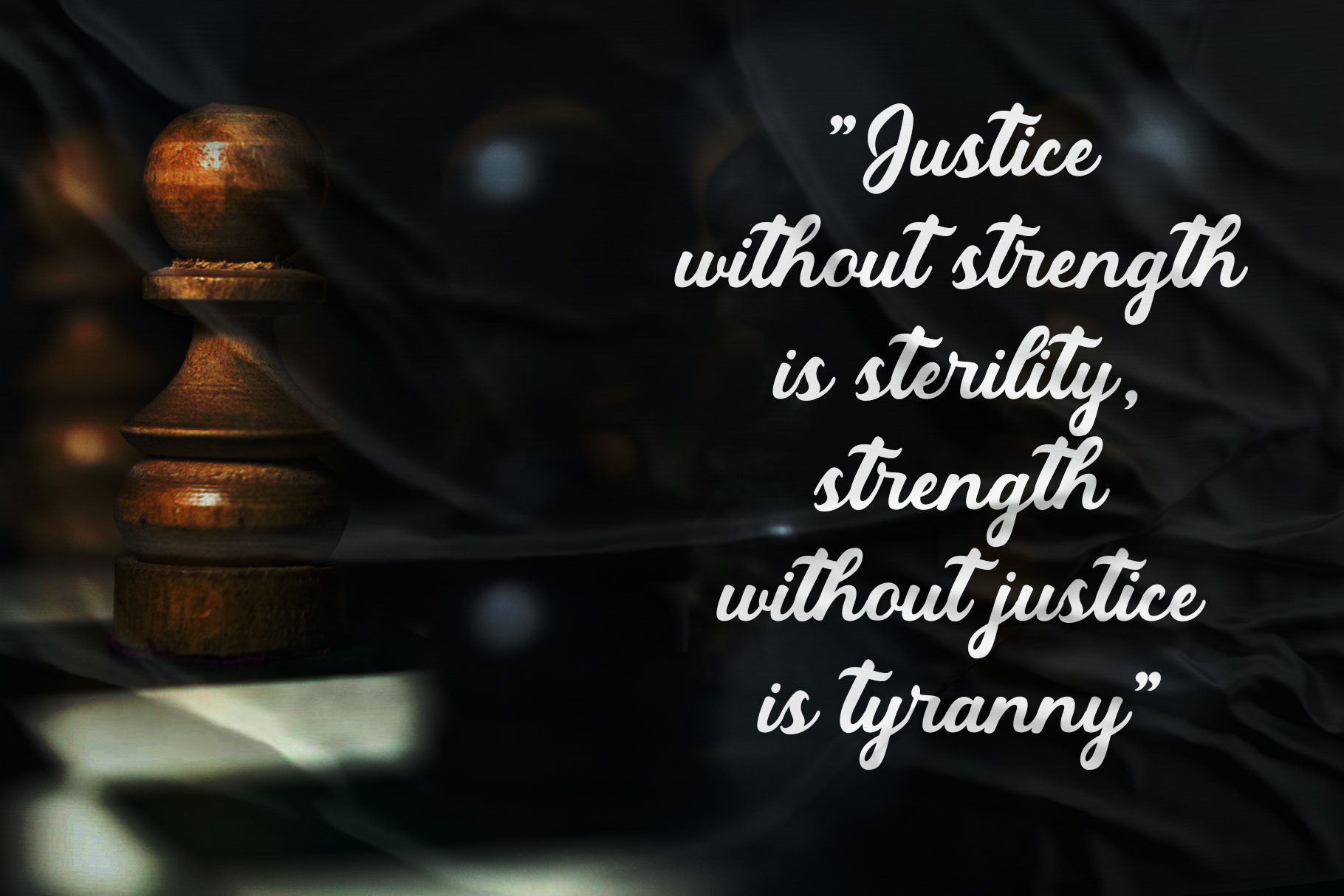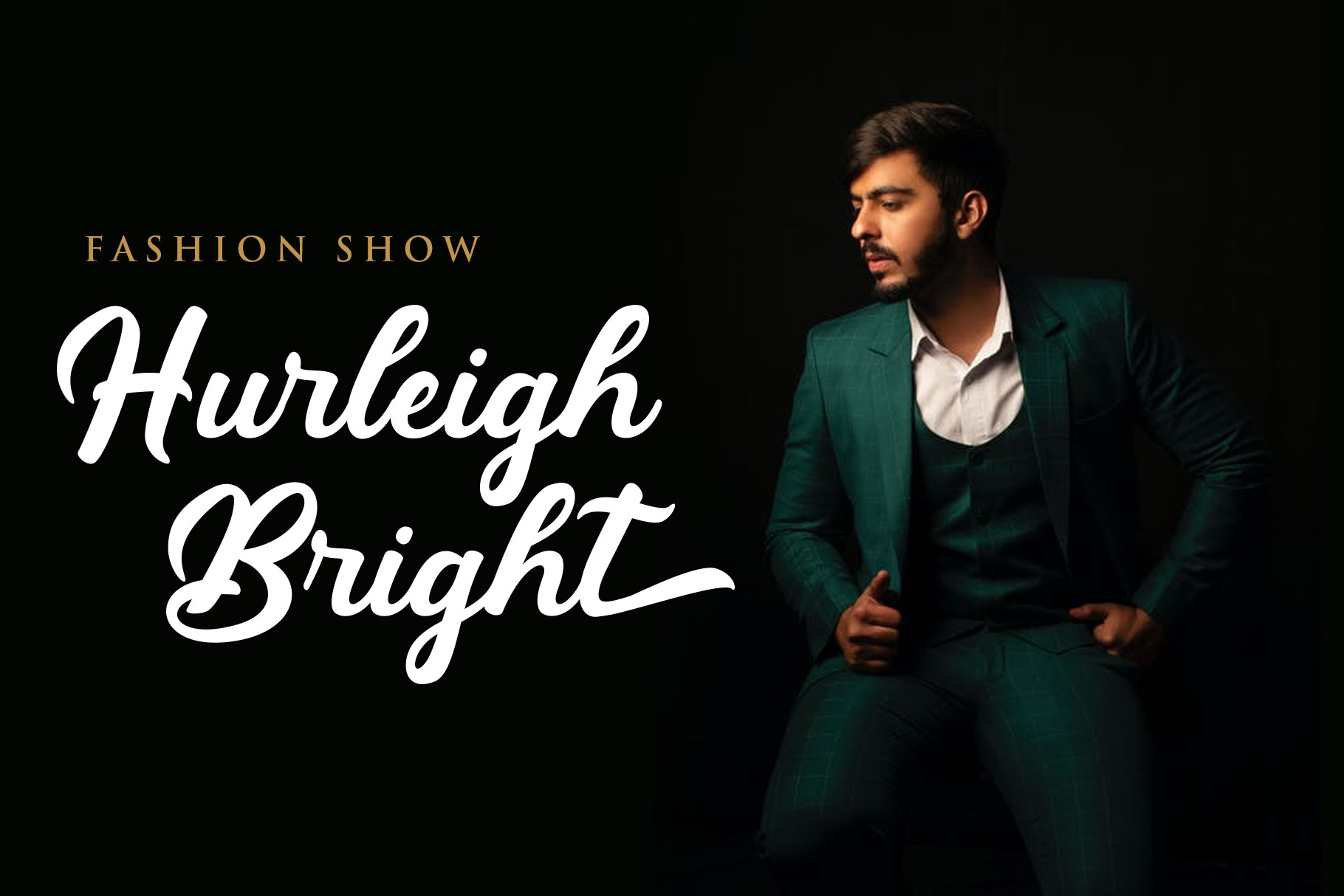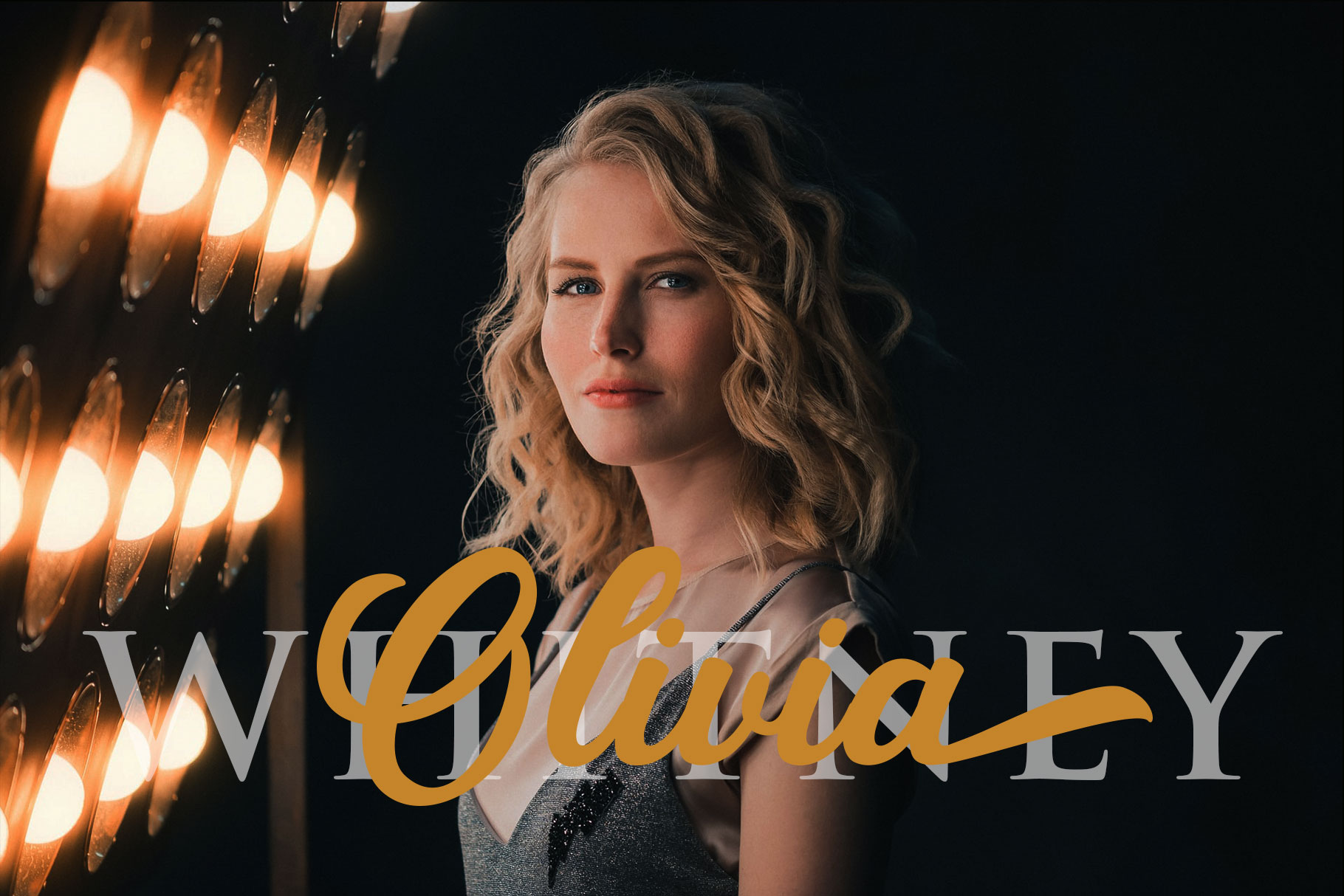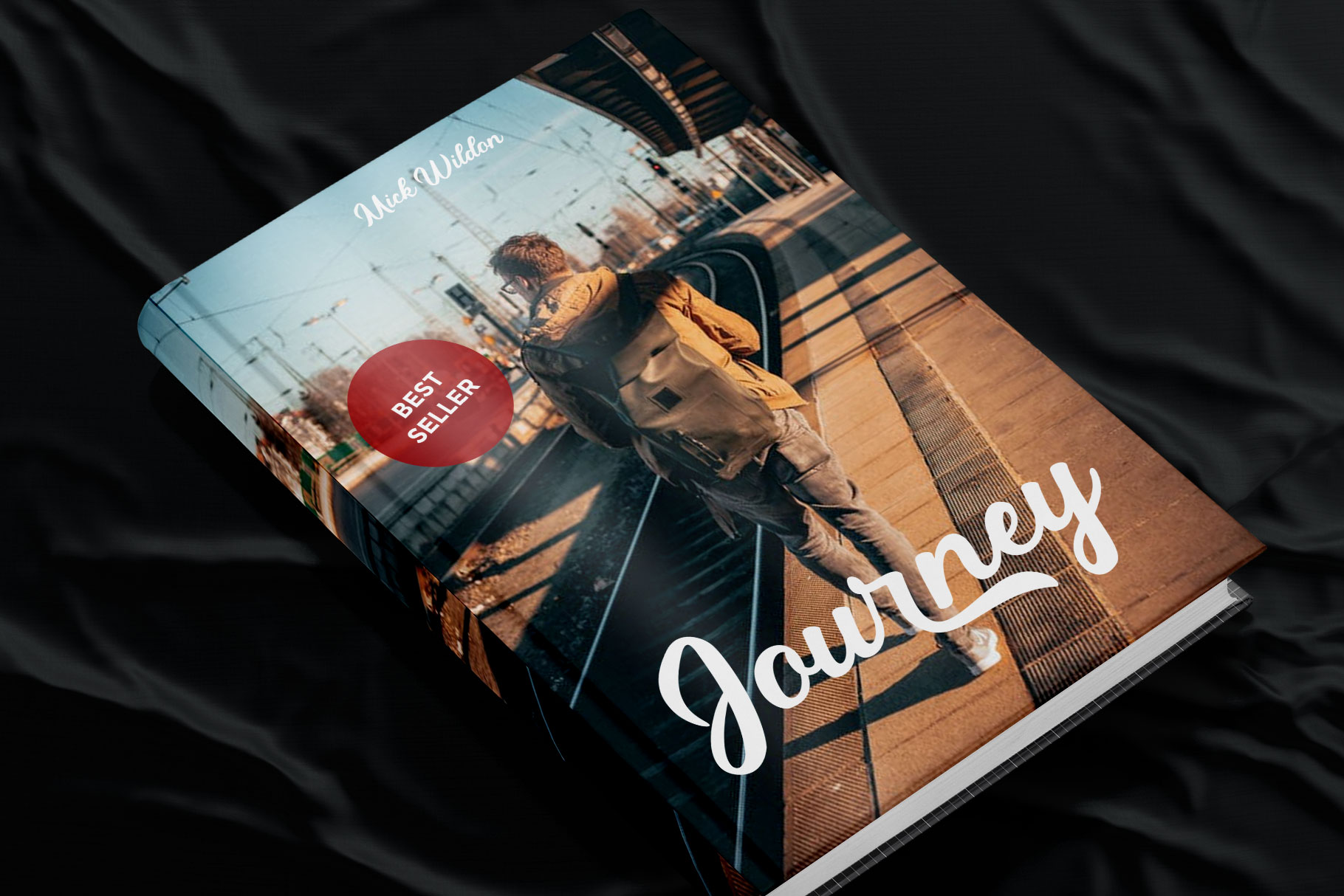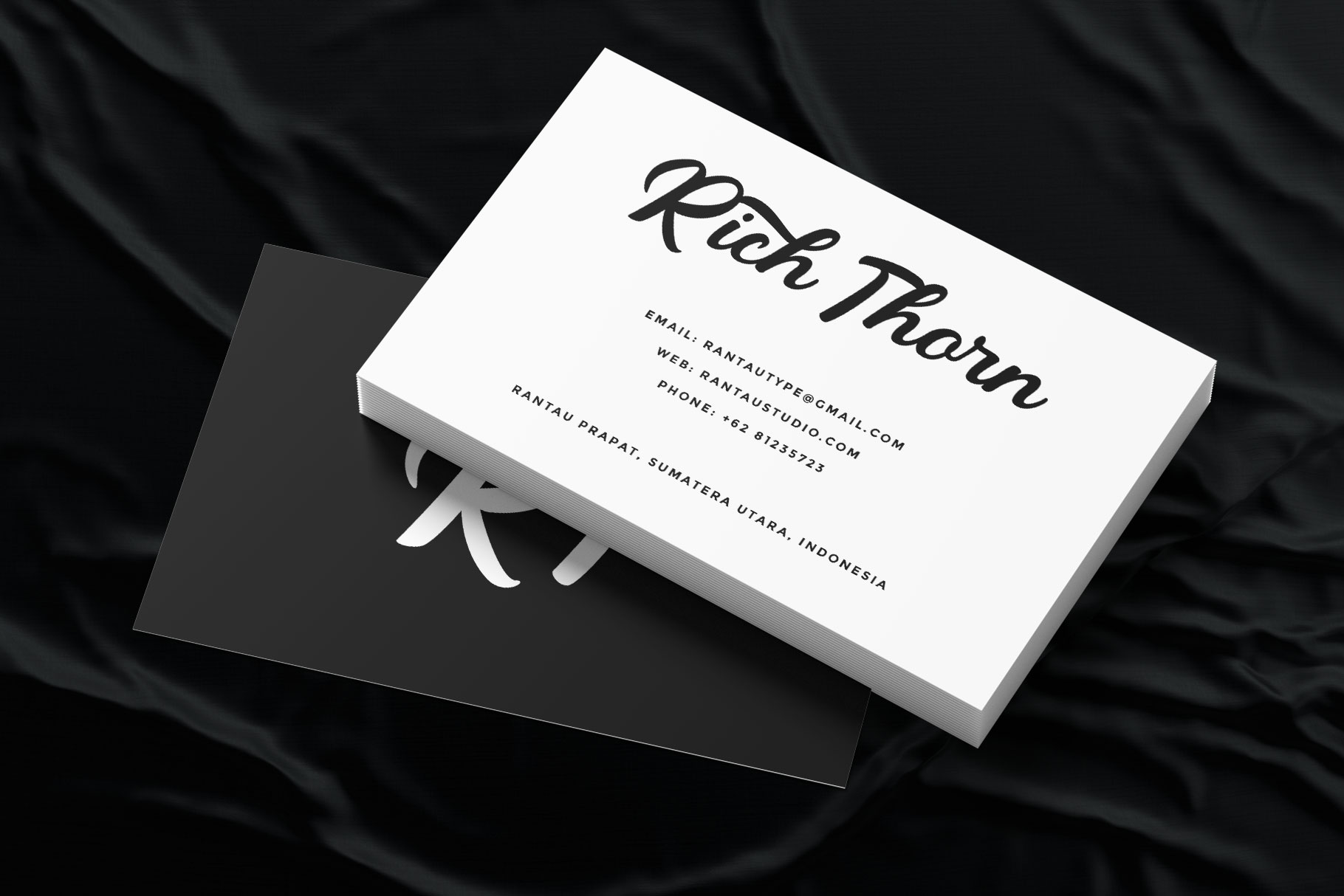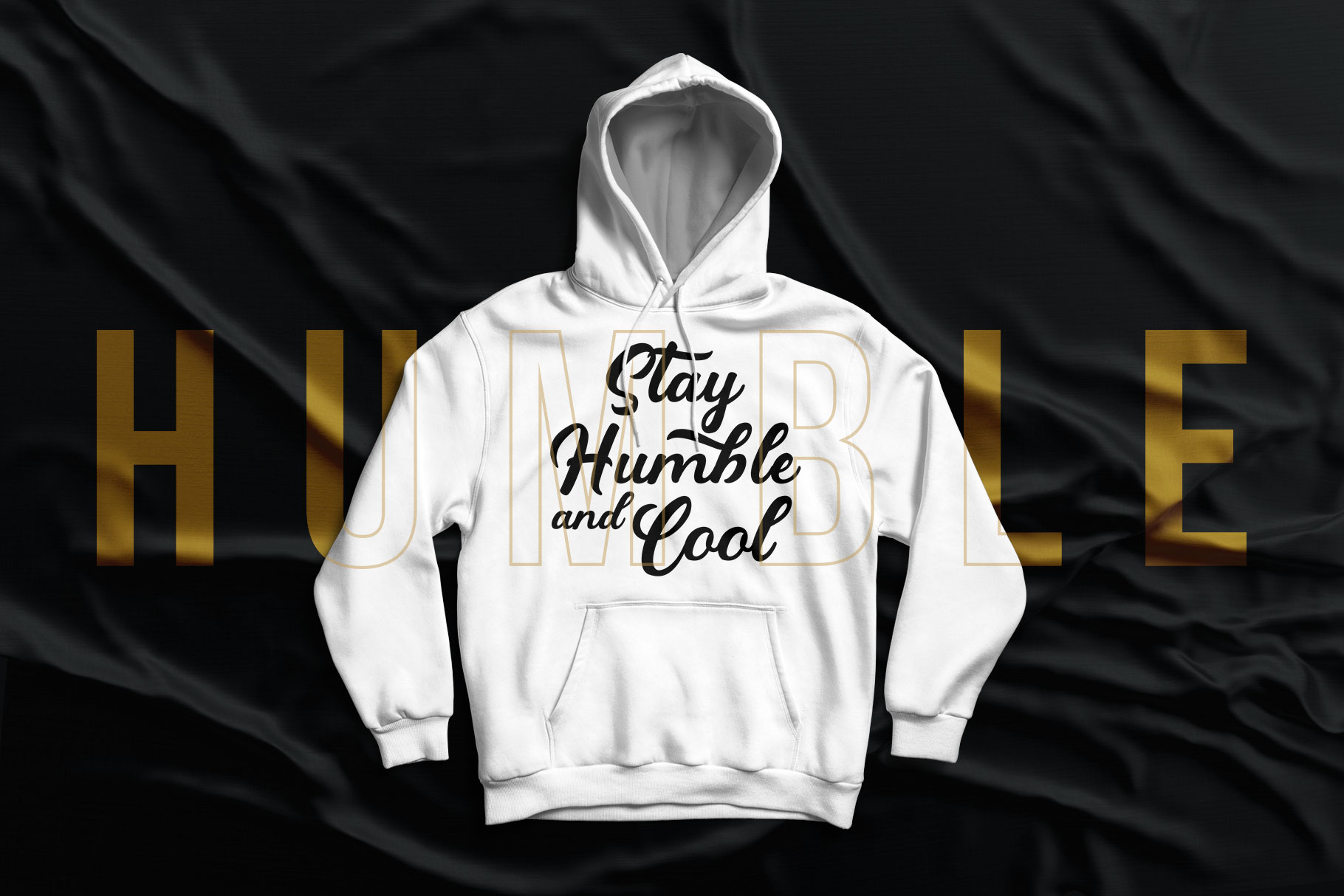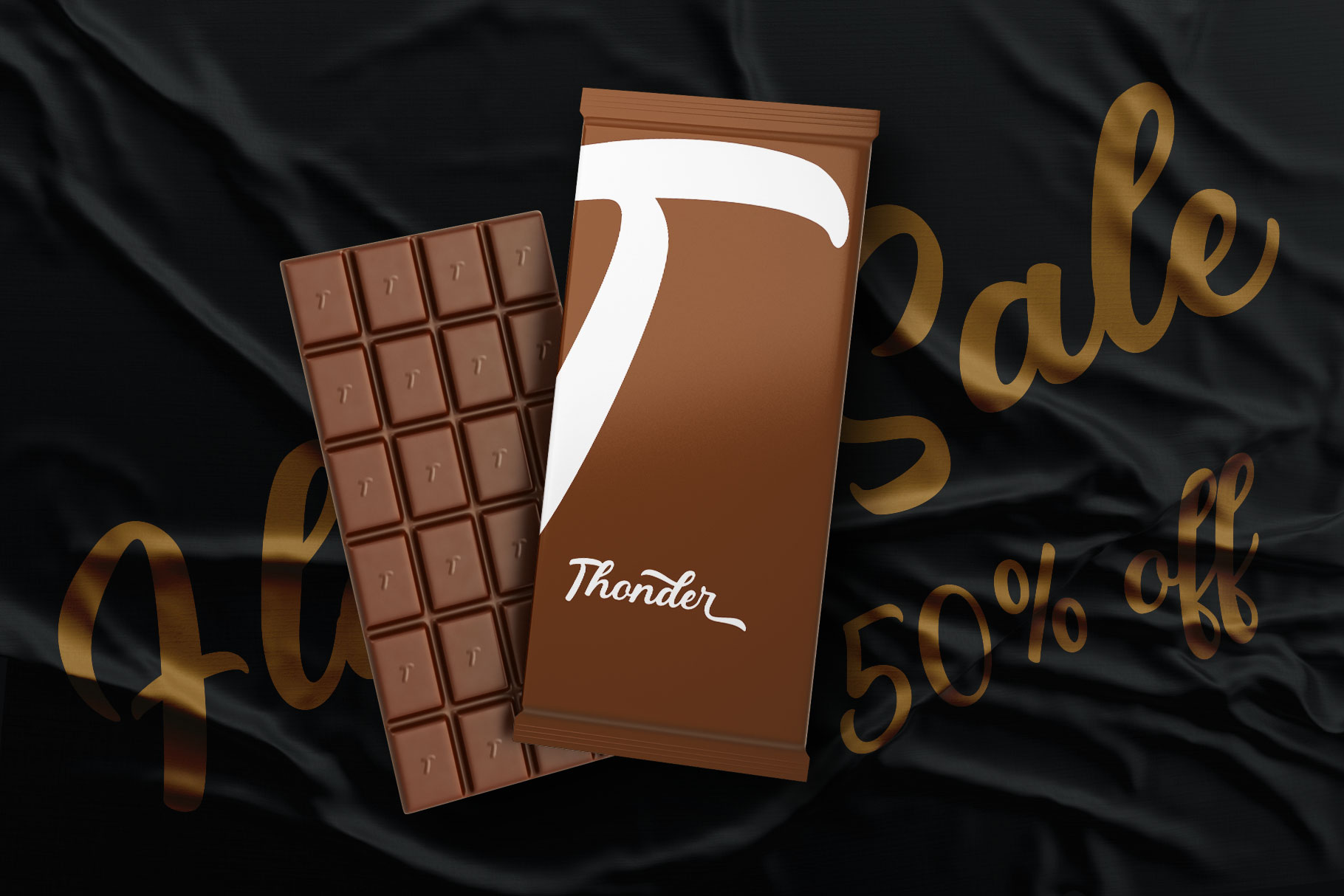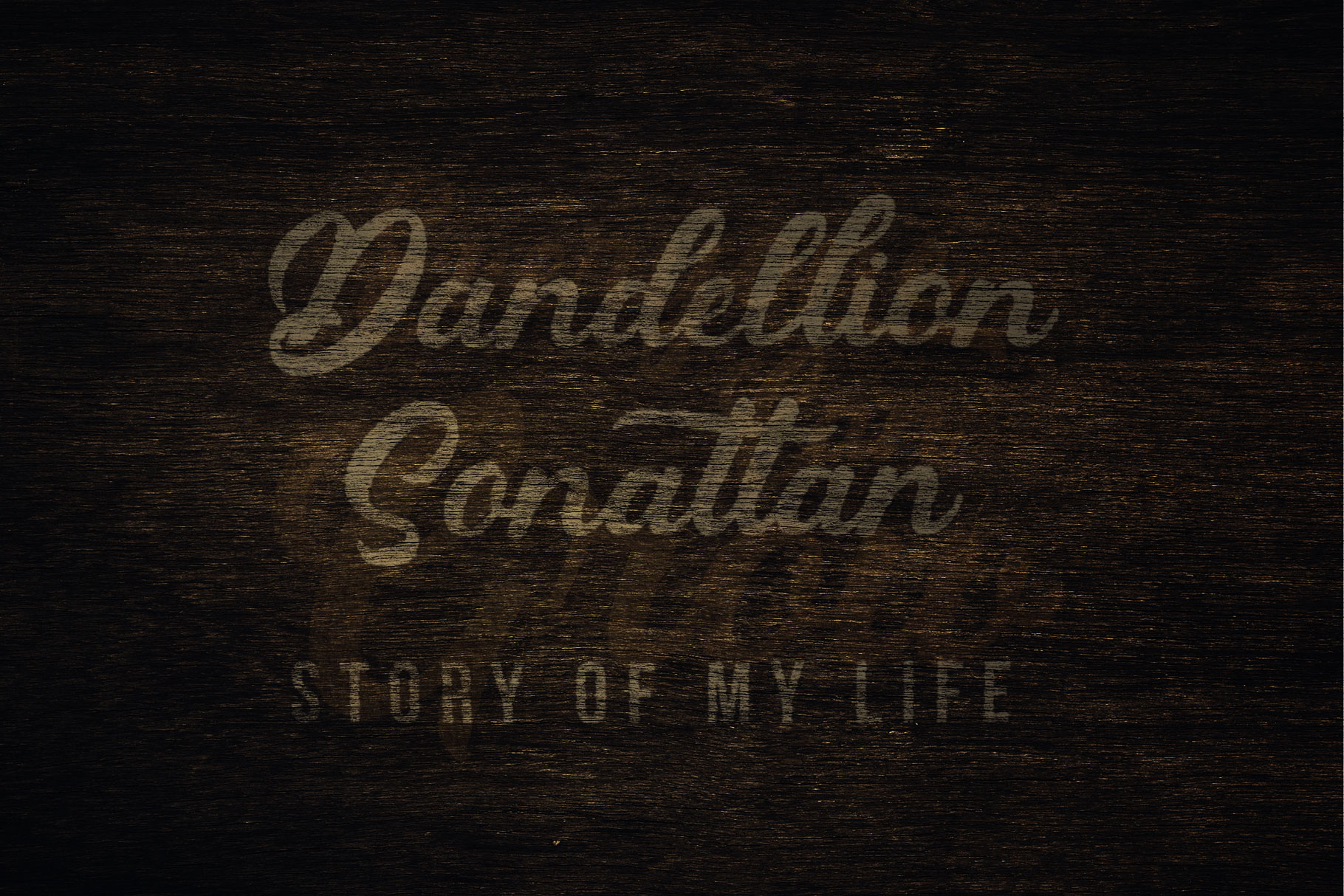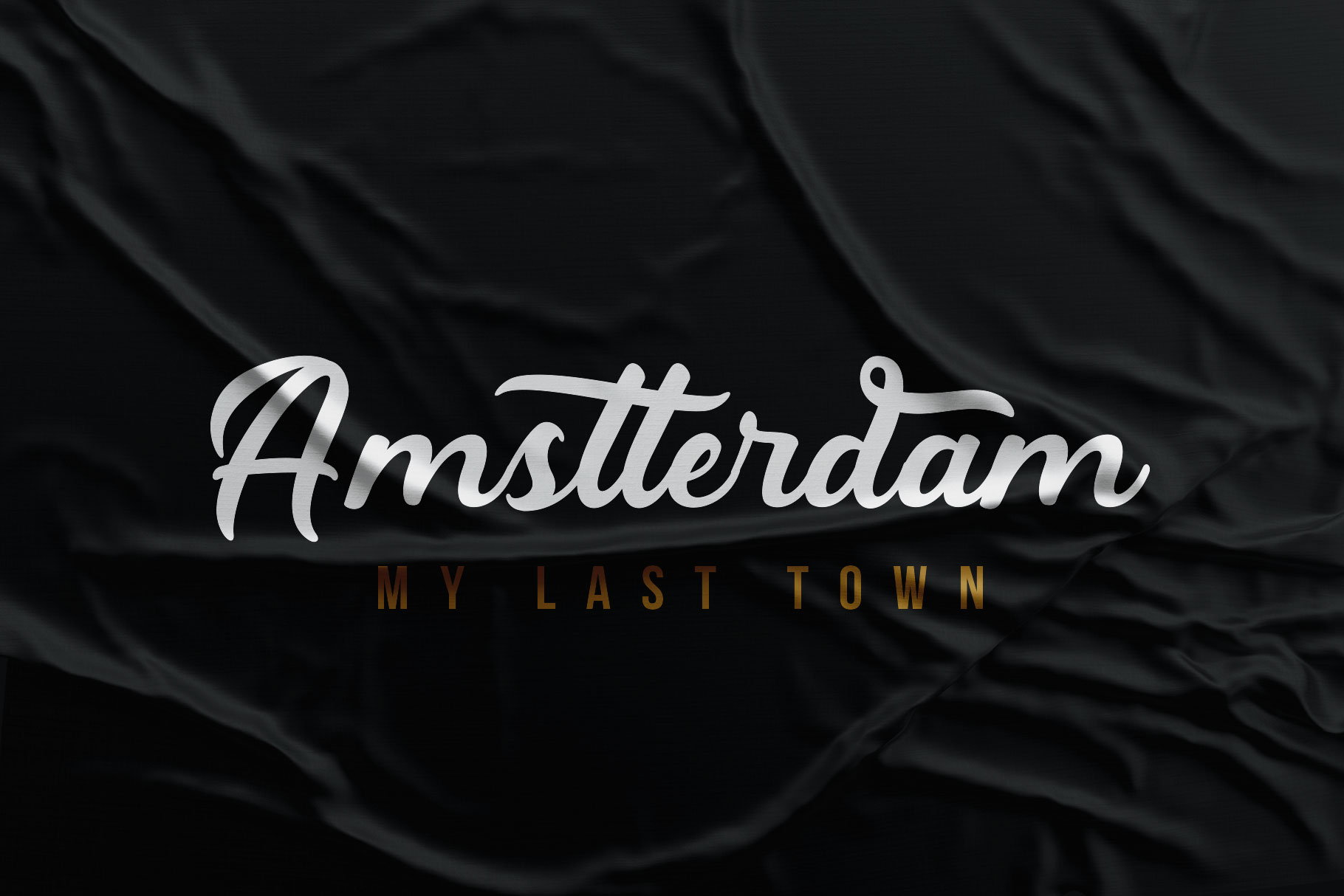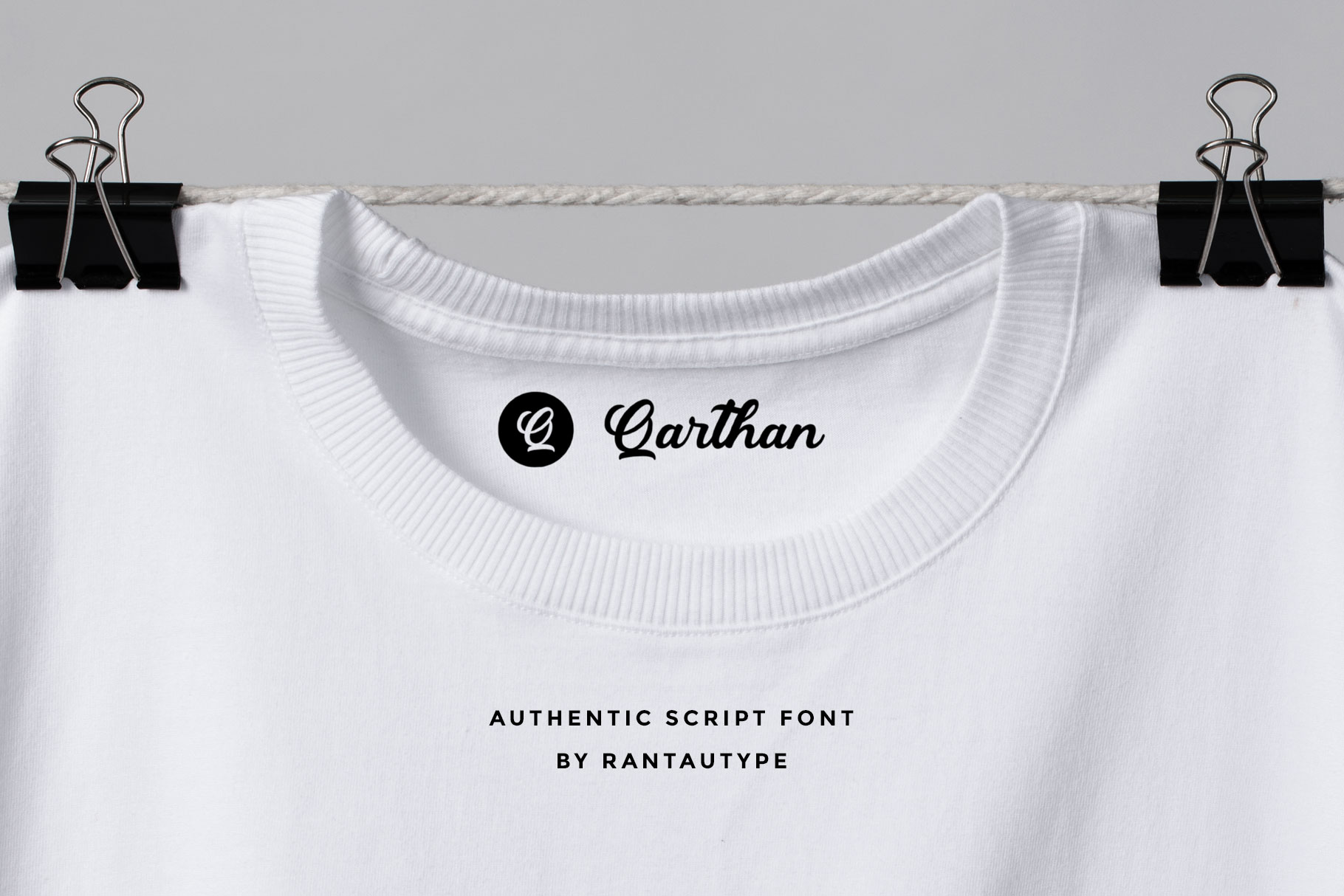
Critical Figure script font
Critical Figure is Inspired by modern Hand Lettering style. Every single curve has personality touch. It is great for making logotype, branding, promotional ads, quotes design, packaging, t-shirt design. merchandise, poster, merchandise, social media and much more.  Coming up with more than 60+ stylistic alternates, you can make so many alternative choices based in your creativity.  Critical Figure is here to make your work or your business to high level!!!
• Basic character  A-Z and a-z
• 60+ alternate and Ligature